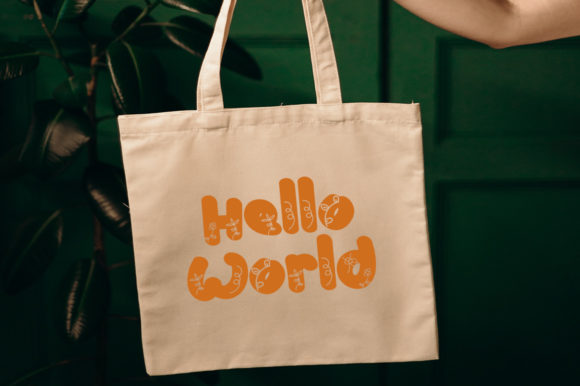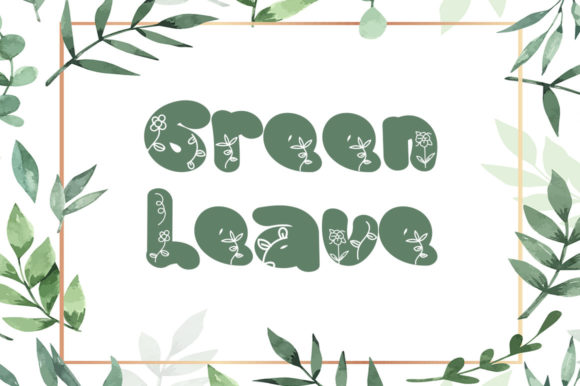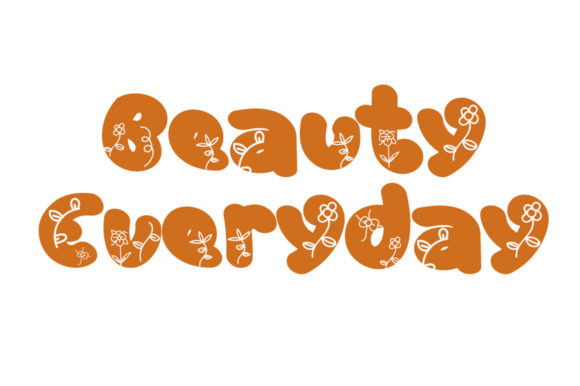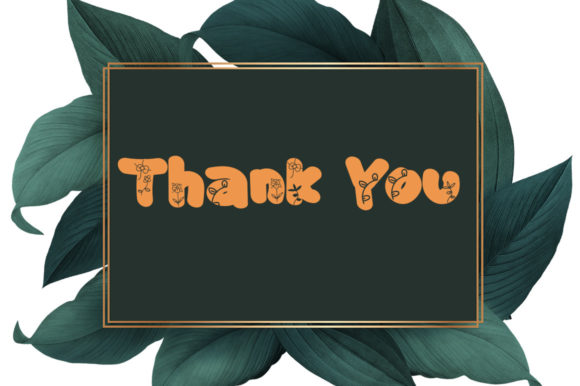
The Ultimate Guide to Black Flower Font: A Fun and Playful Display Font
I’ll never forget the time I was working on a children’s party invitation project, and I just couldn’t find the right font to match the playful theme. The client wanted something fun, bubbly, and engaging, but everything I tried seemed either too boring or too over-the-top. That’s when I stumbled upon the Black Flower font, and it instantly brought the design to life! In this article, I’ll share my experience with this amazing font, its features, and how to make the most of it in your designs.
An Honest Review of Black Flower Font
What I Love About Black Flower Font ✨
- ✅ Its unique, hand-drawn aesthetic makes it perfect for children’s themed designs, such as party invitations, kids’ apparel, and educational materials.
- ✅ The font is highly legible, even at smaller sizes, making it versatile for various design applications.
- ✅ Black Flower font comes with a range of OpenType features, including glyphs and stylistic alternates, allowing for endless creative possibilities.
- ✅ The font’s bubbly and fun personality instantly adds a playful touch to any design.
While Black Flower font is an excellent choice for many design projects, there are a few things to keep in mind:
- ⚠️ The font’s playful nature might not make it the best fit for more formal or corporate designs.
- ⚠️ Some of the glyphs and special characters might require a bit of experimentation to get the hang of using them.
The Story Behind Black Flower Font
Black Flower font was designed with the intention of creating a fun, playful, and engaging display font that’s perfect for children’s designs. The designer aimed to capture the whimsical and imaginative world of childhood, where flowers and other natural elements come alive. The result is a font that’s both bubbly and elegant, making it suitable for a wide range of design applications.
Q: What type of designs is Black Flower font best suited for?
A: Black Flower font is perfect for children’s themed designs, such as party invitations, kids’ apparel, educational materials, and nursery rhymes.
Q: Does Black Flower font come with OpenType features?
A: Yes, Black Flower font comes with a range of OpenType features, including glyphs and stylistic alternates, allowing for endless creative possibilities.